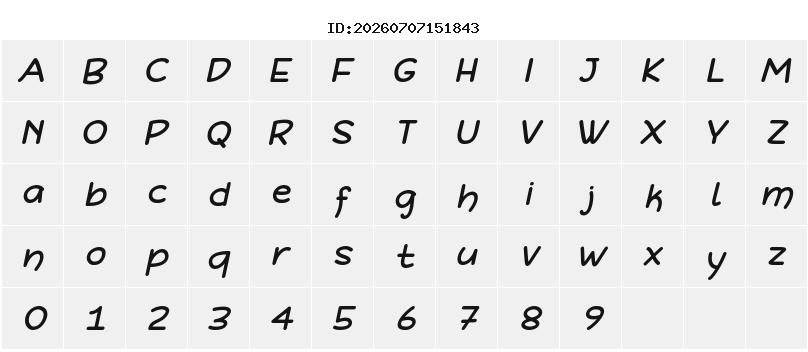
DeFonarts Preview
• Font Name: DeFonarts
• Font ID: DeFonarts Italic:Version 1.00
• Full Font Name: DeFonarts Italic
• Version: Version 1.00 September 14, 2014, initial release
• PostScript Name: DeFonarts-Italic
• Character Count: 531
• Designer: Situjuh Nazara
About DeFonarts.otf
DeFonarts.otf is a modern, elegant sans-serif font designed for ultimate readability and visual harmony. Perfect for branding, headlines, web design, and print materials.